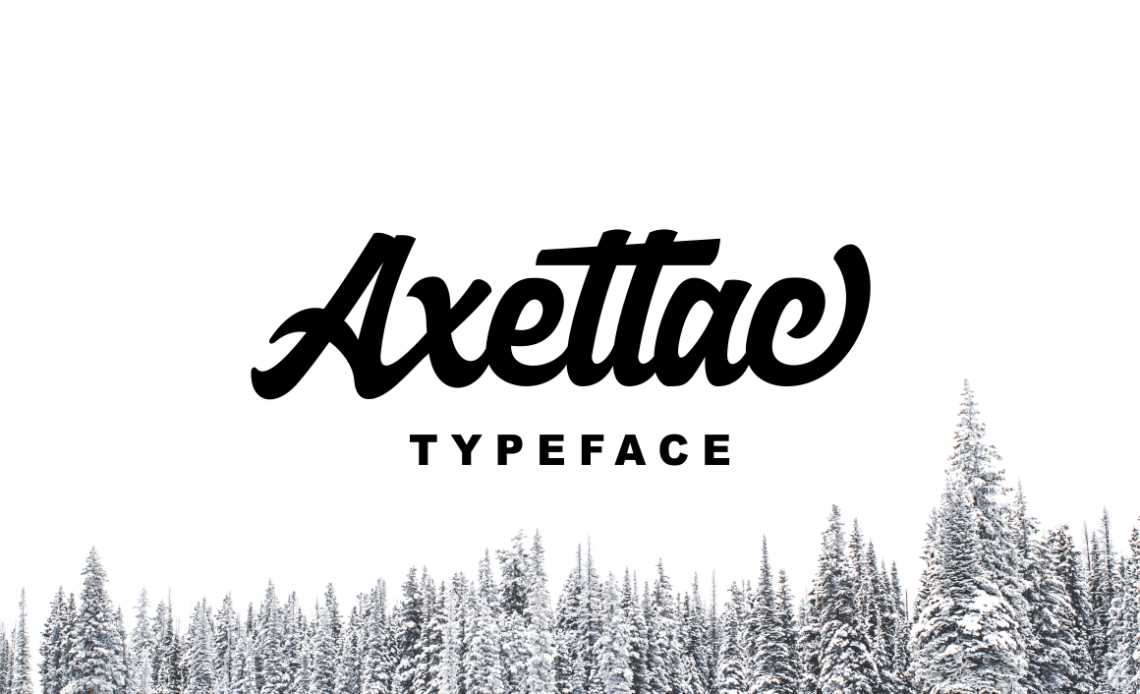
Welcome to the world of Axettac, a script font that dances with boldness and inspires with its daring strokes. With Axettac, your designs will radiate a captivating energy that attracts attention like a magnet.
In a realm where fonts often blend together, Axettac stands tall, asserting its unique character. Its sweeping lines and dramatic flourishes create an undeniable presence, making it the perfect choice for logotypes that demand to be seen and apparel that speaks volumes.
Picture your designs adorned with Axettac's unmistakable charm. Your posters will come alive with a dynamic energy, captivating the eyes of all who behold them. Unleash your creativity and watch as Axettac transforms your vision into a masterpiece.
More than just a font, Axettac is an expression of your artistic spirit. Its versatile nature allows it to effortlessly adapt to a variety of projects, from invitations to social media graphics. Whether you're looking to add a touch of elegance or a dash of intrigue, Axettac delivers every time.
But what truly sets Axettac apart is its attention to detail. With extra swashes and multilingual support, this font goes above and beyond to cater to your every need. It's like having a personal typographer at your fingertips, ensuring that your designs always look polished and professional.
So, if you're ready to elevate your designs to new heights, embark on a journey with Axettac. Let its bold strokes ignite your imagination and its daring spirit set your creativity ablaze. Experience the power of a font that refuses to be ordinary and embrace the extraordinary with Axettac.